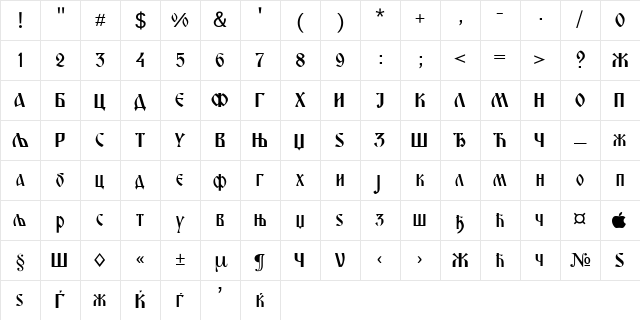
C_YU Miroslav Regular
Design Context for C_YU Miroslav
C_YU Miroslav is a composed and adaptable typeface that performs quietly and consistently across a wide range of design contexts.